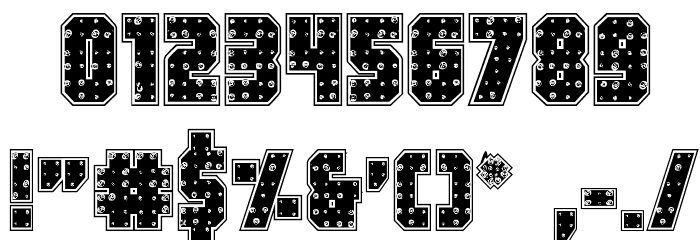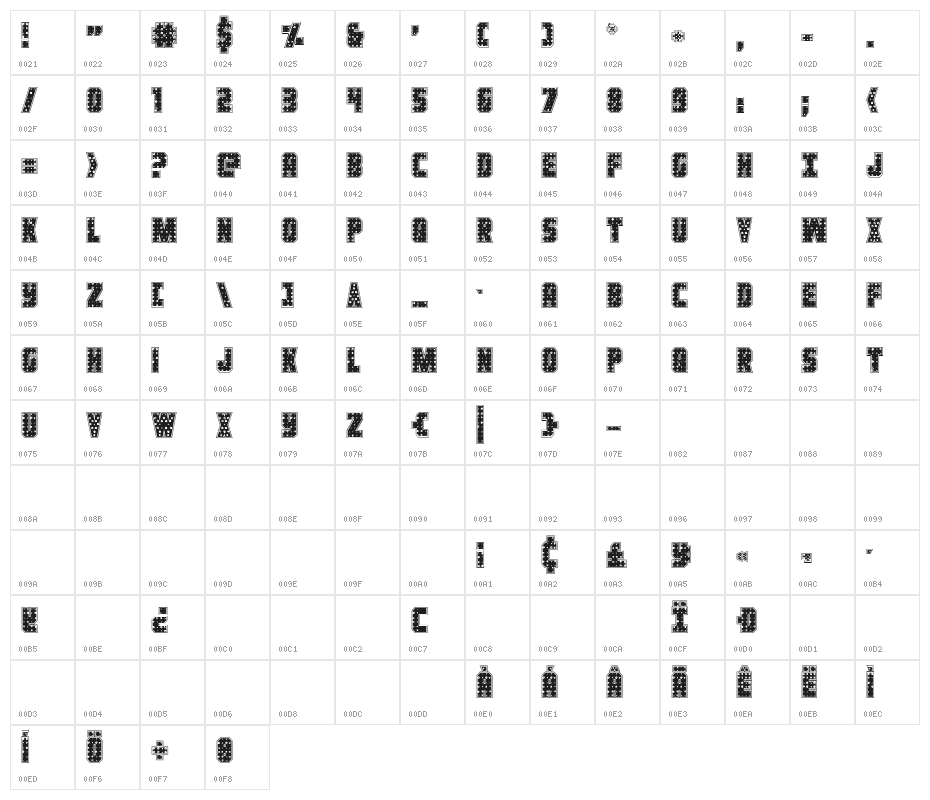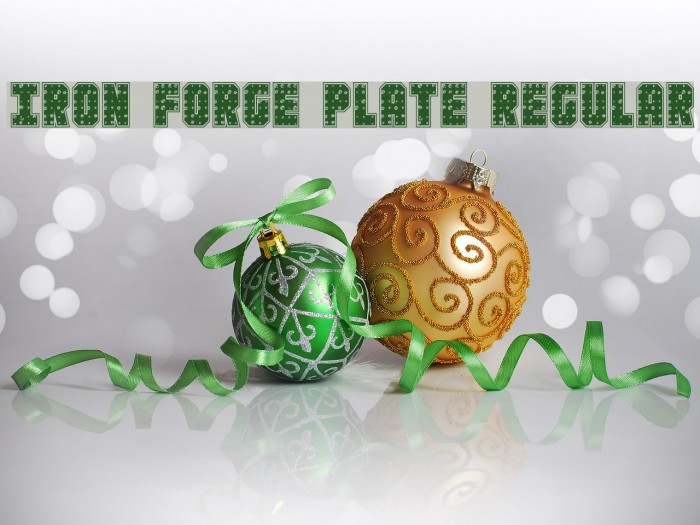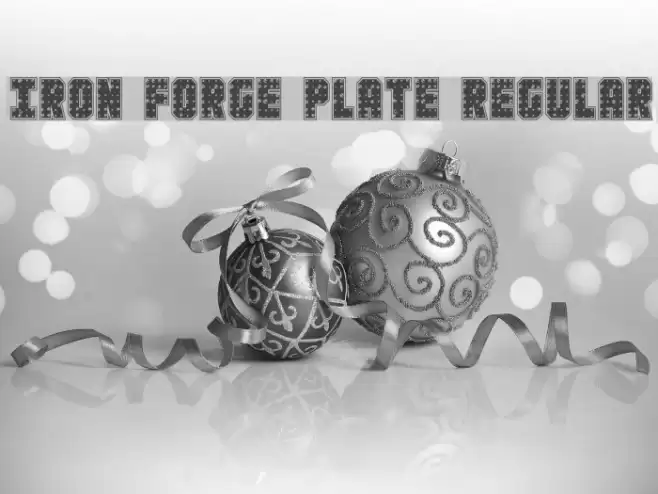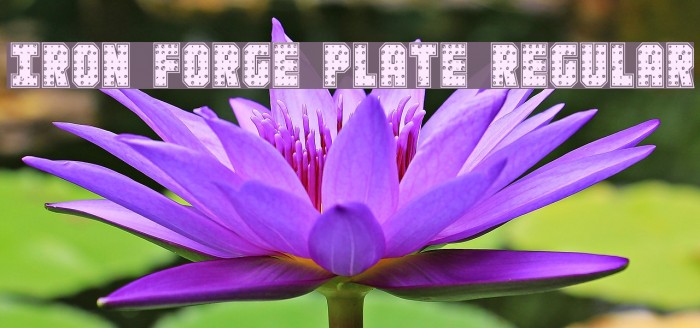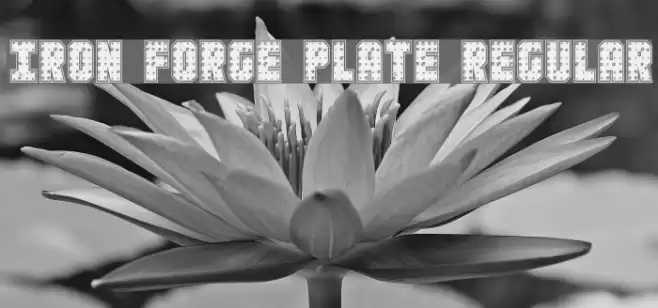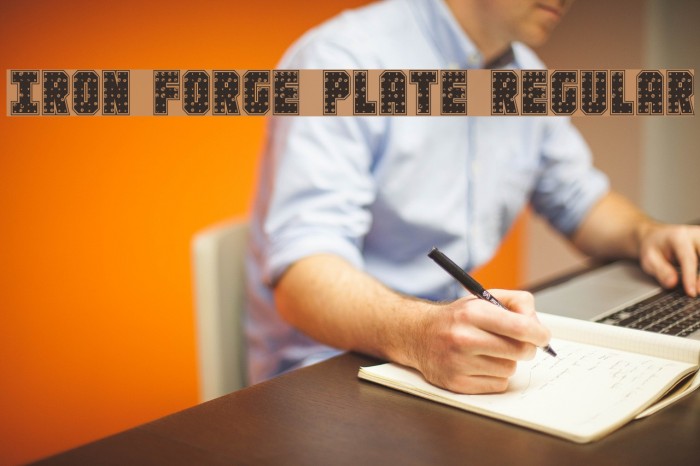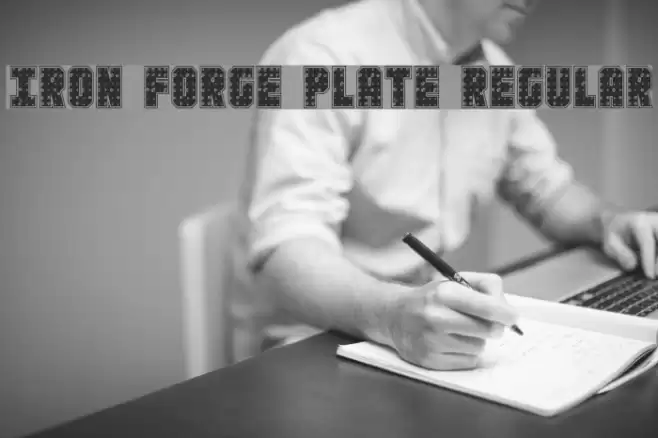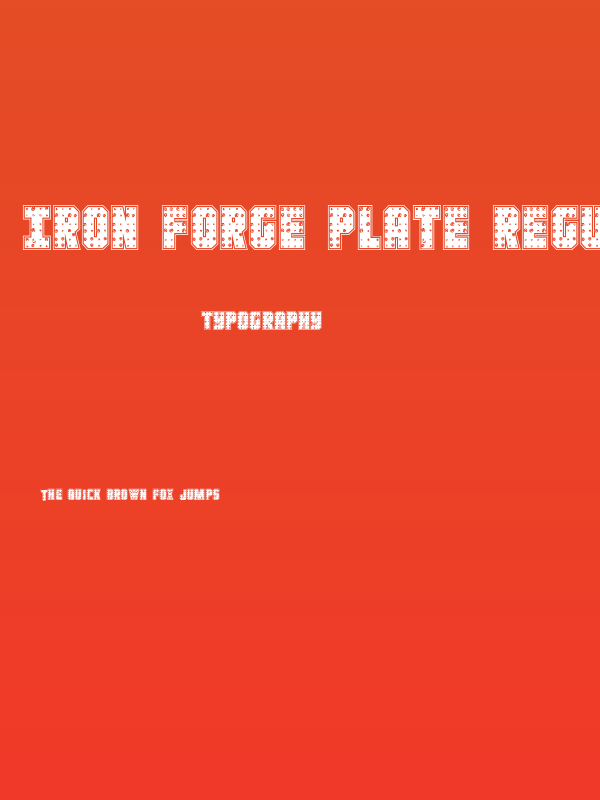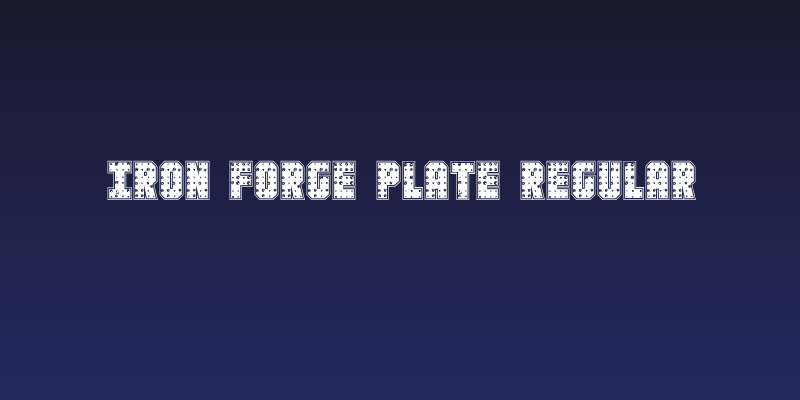
Iron Forge Plate Regular Font
Iron Forge Plate Regular Description
This font features a bold, industrial design with a distinct metallic appearance. Each character is constructed with a heavy, block-like structure, reminiscent of iron plates bolted together. The letters are adorned with rivet-like details, adding to the rugged, mechanical aesthetic. The overall look is both robust and decorative, making it ideal for projects that require a strong, eye-catching typeface. The font maintains a consistent weight throughout, with a uniform width that gives it a solid, cohesive feel. The spacing between characters is normal, ensuring readability while maintaining its bold presence.
| Overall Style | Industrial, Decorative |
| Proposed Projects | Ideal for use in industrial-themed posters, logos, video game titles, and branding materials that require a strong, mechanical aesthetic. |